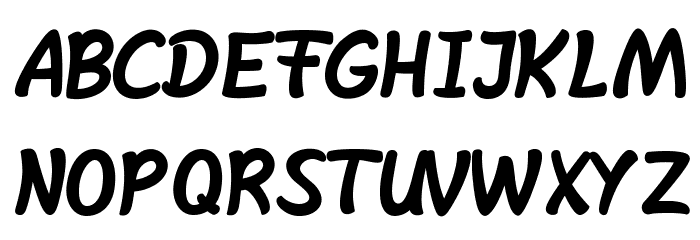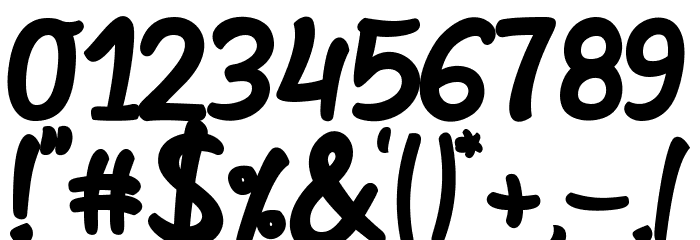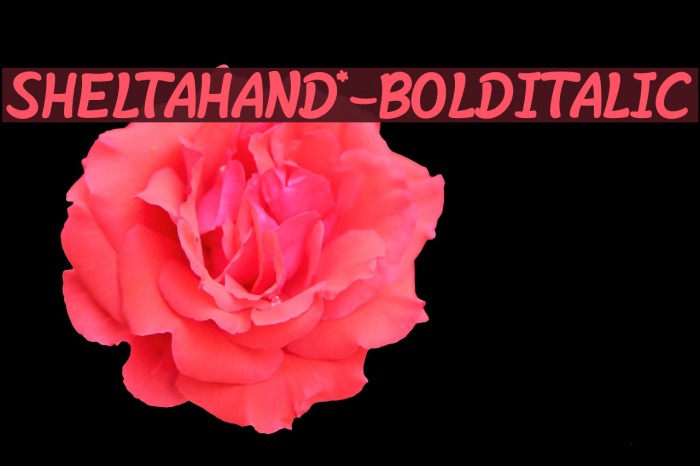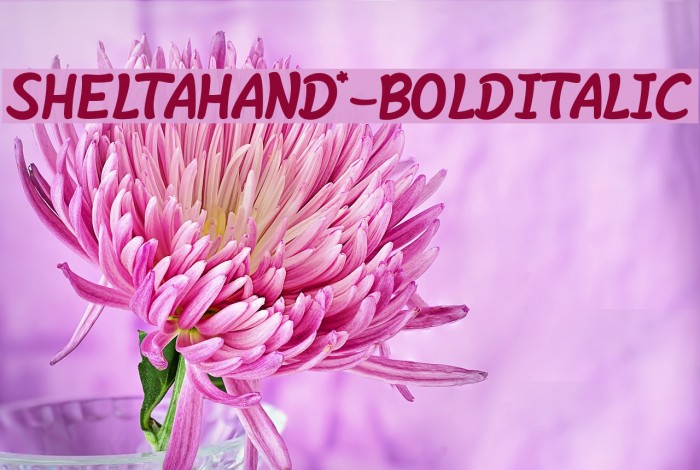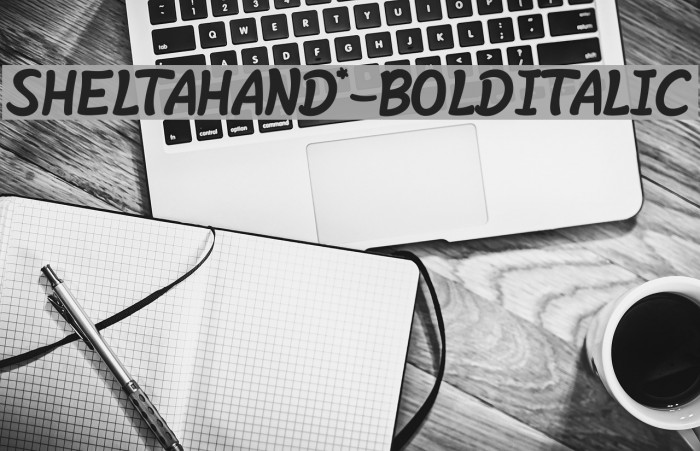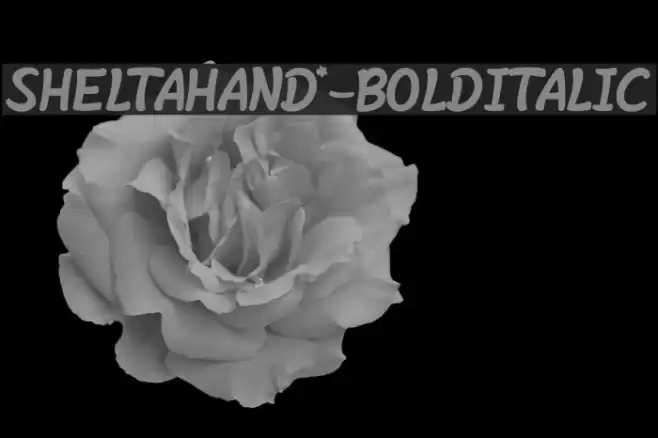
SheltaHand*-BoldItalic Font
This font features a bold and italicized handwritten style, characterized by smooth, flowing curves and a playful, casual appearance. The letters are slightly slanted, enhancing the dynamic and energetic feel of the typeface. The strokes are thick and consistent, providing a strong visual impact. The numbers and special characters maintain the same lively style, ensuring a cohesive look across all text elements. The font's informal and approachable design makes it suitable for projects that require a personal touch.
A bold, italicized handwritten font with smooth curves and a playful style.
- Proposed Projects: Ideal for greeting cards, invitations, playful branding, children's books, and social media graphics.
- Overall Style: Casual
- Use Case: Headlines, Logos, Informal Text